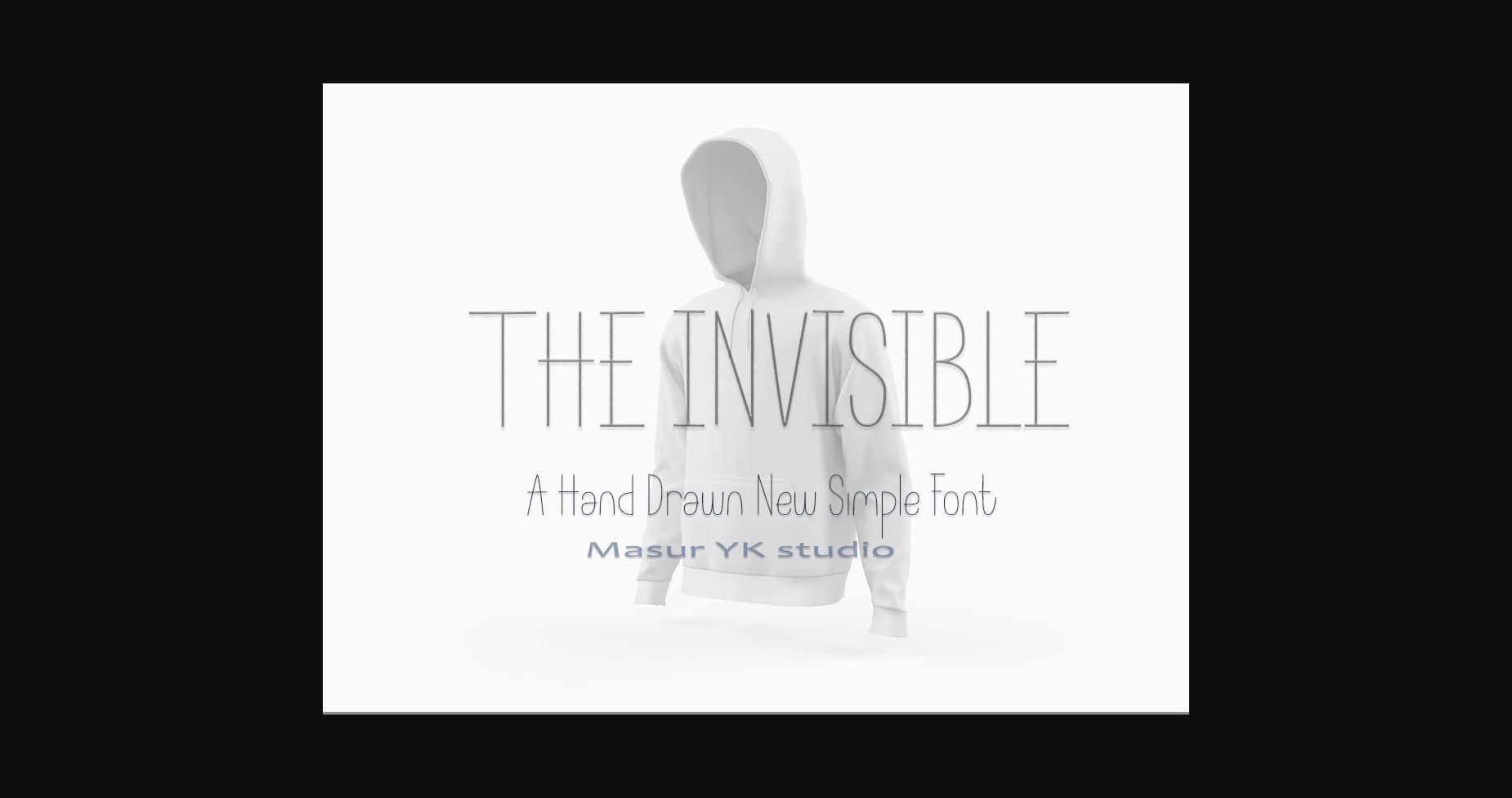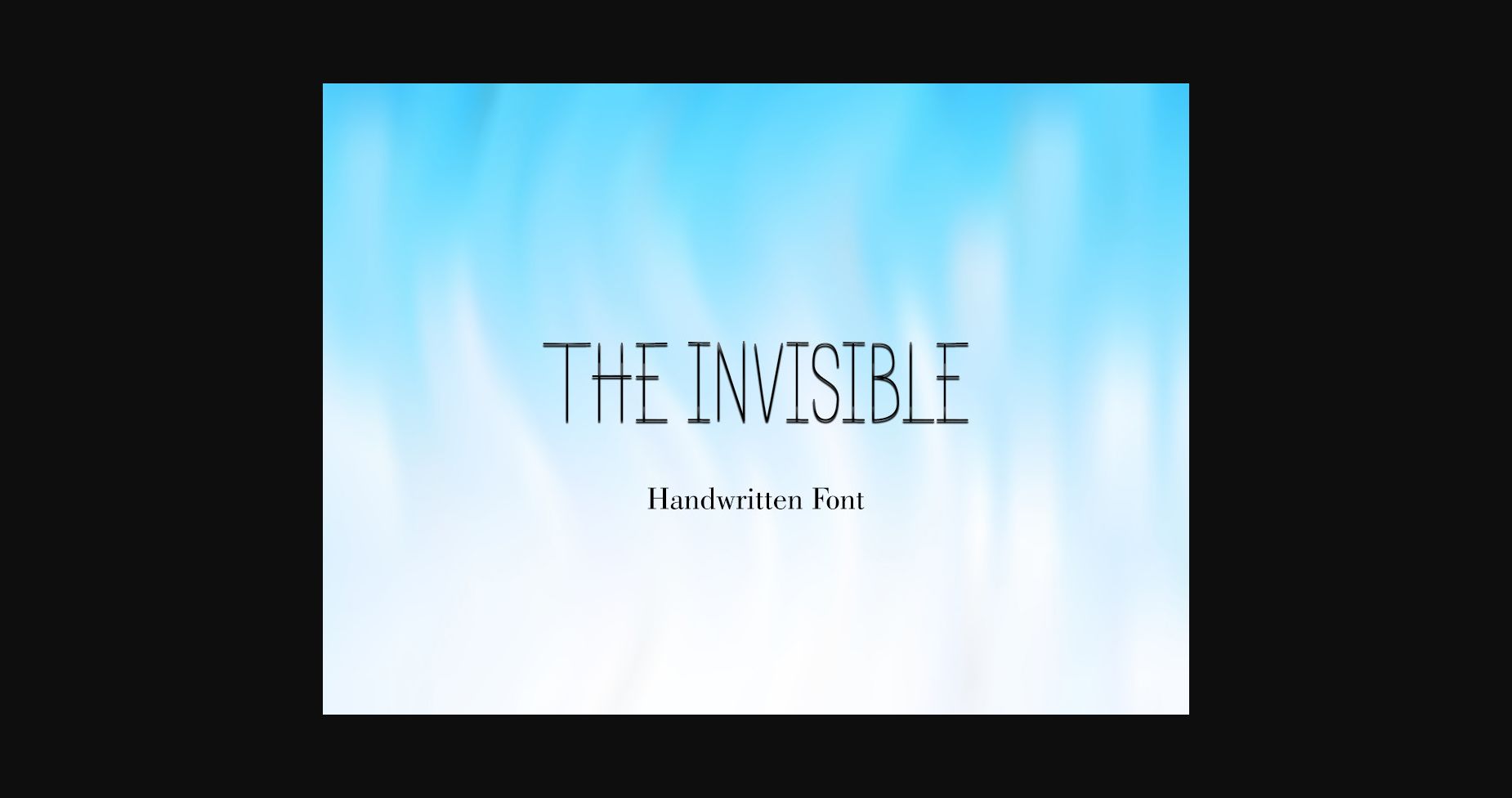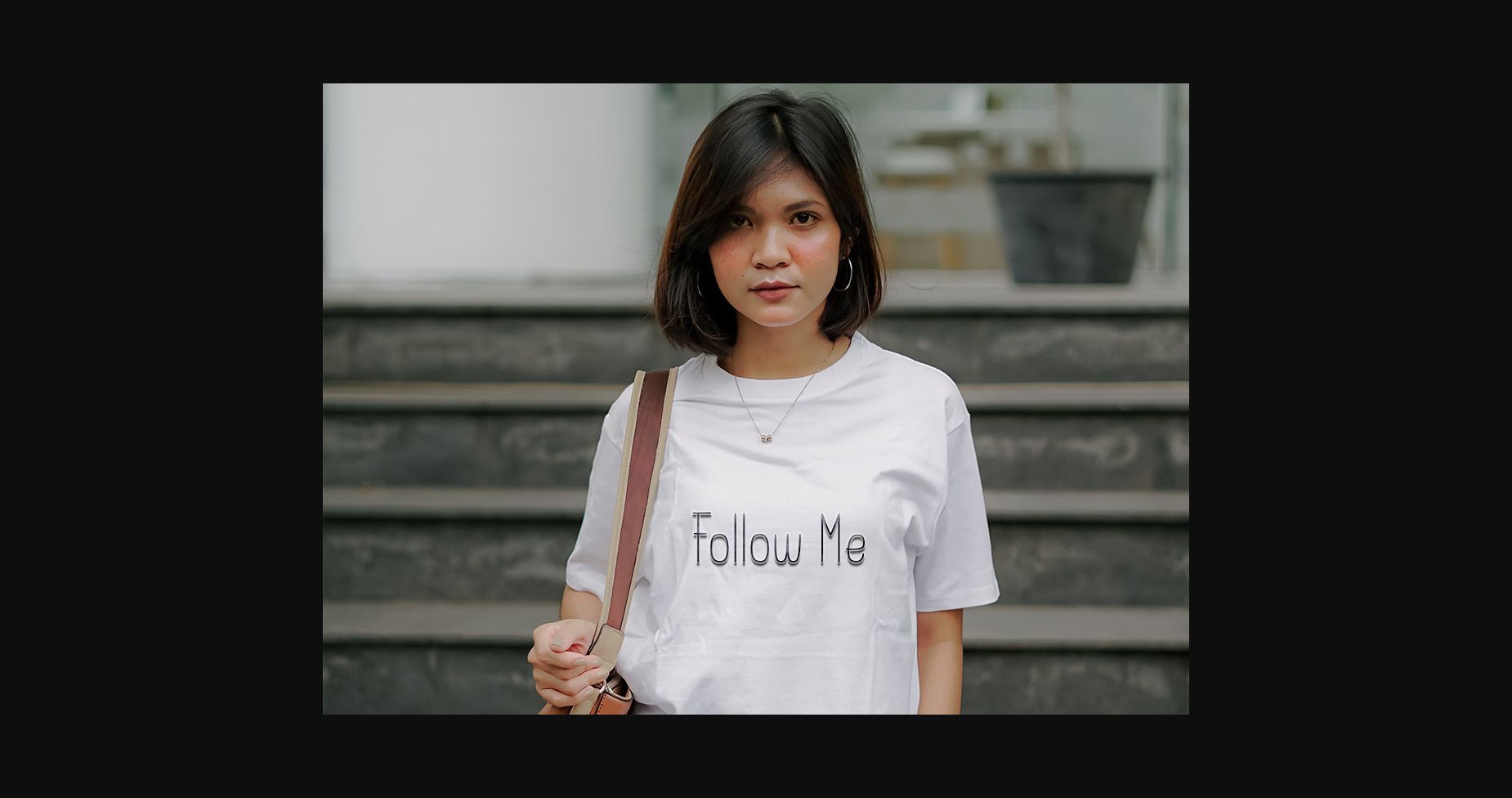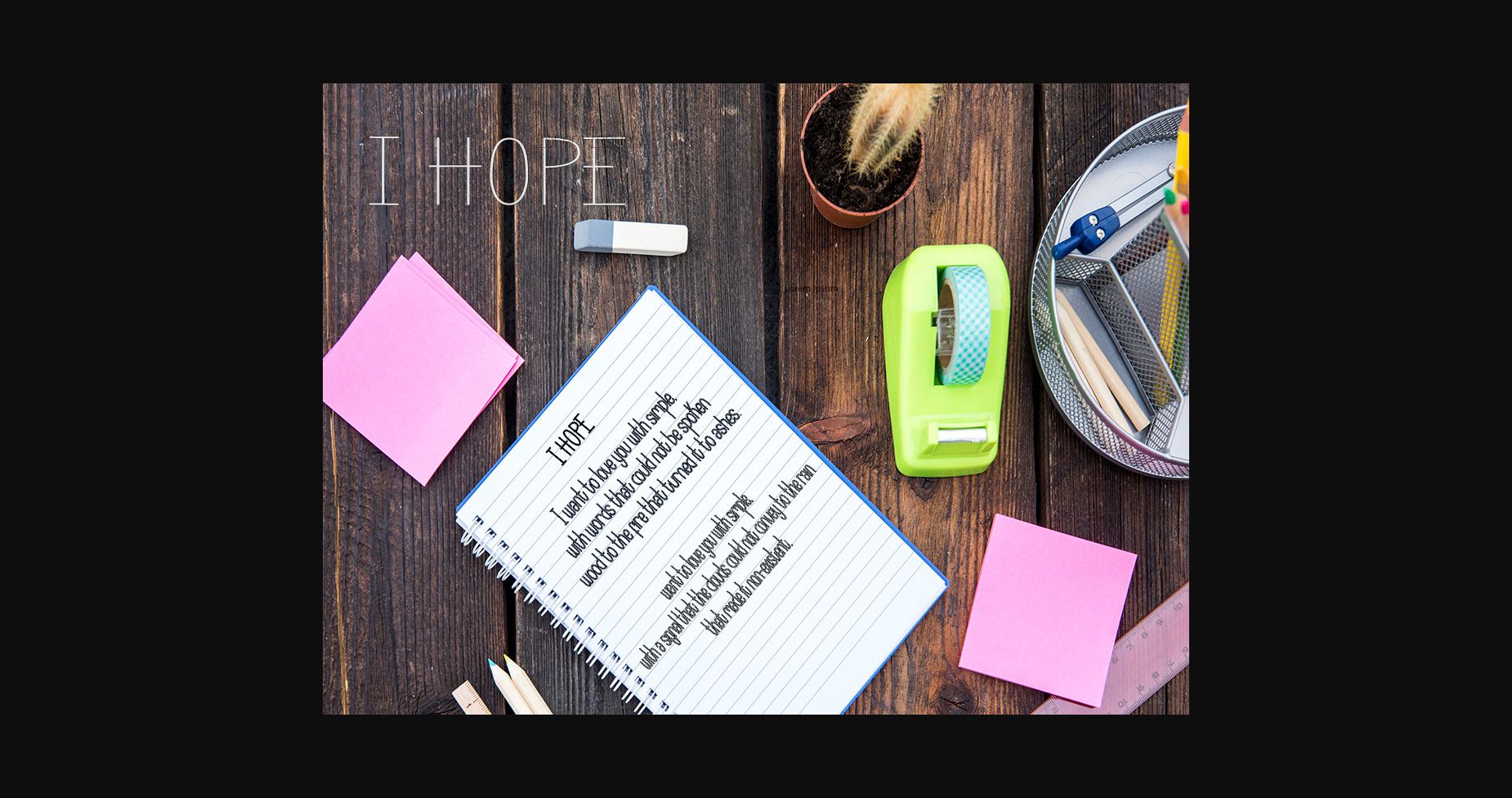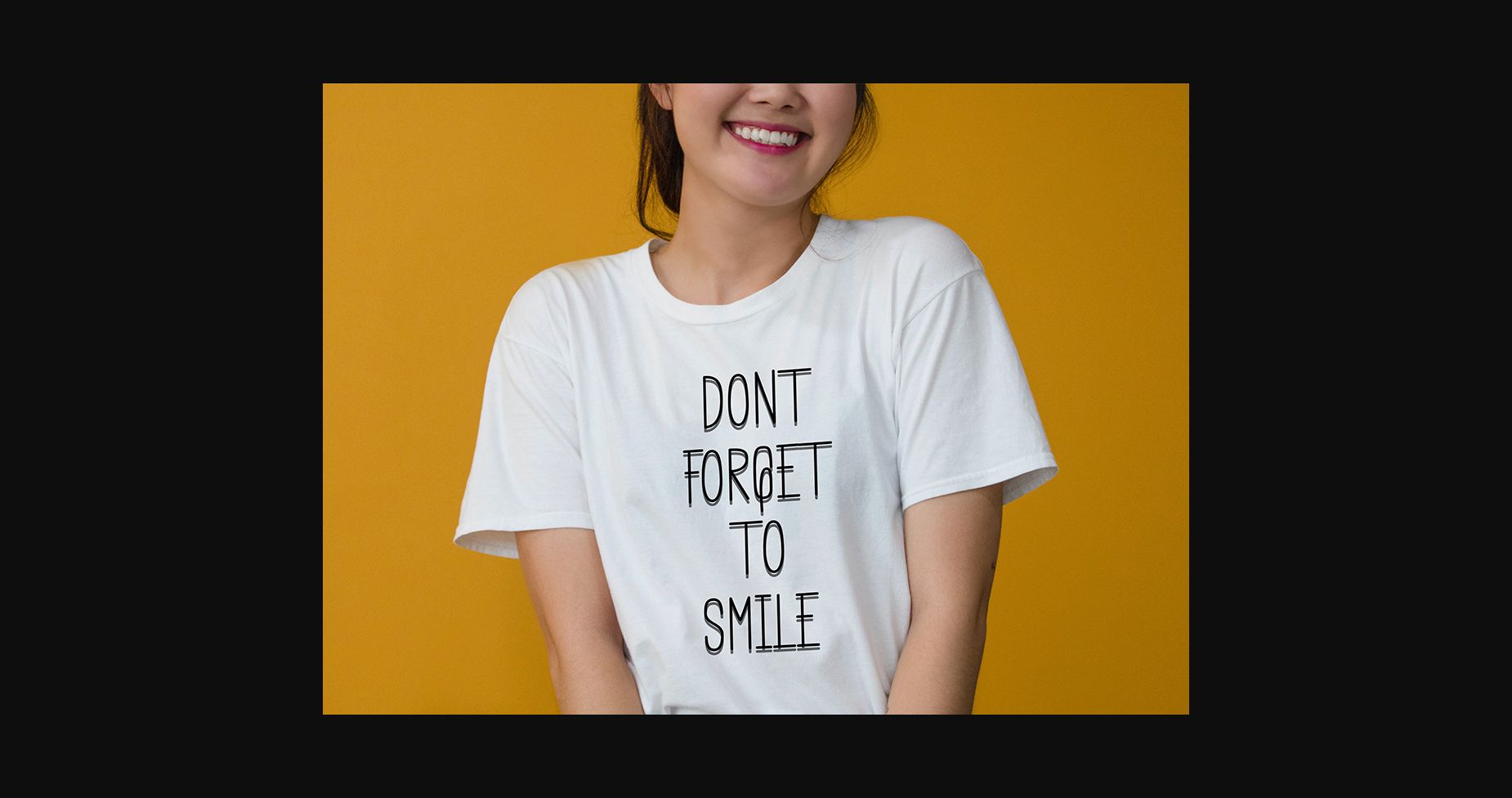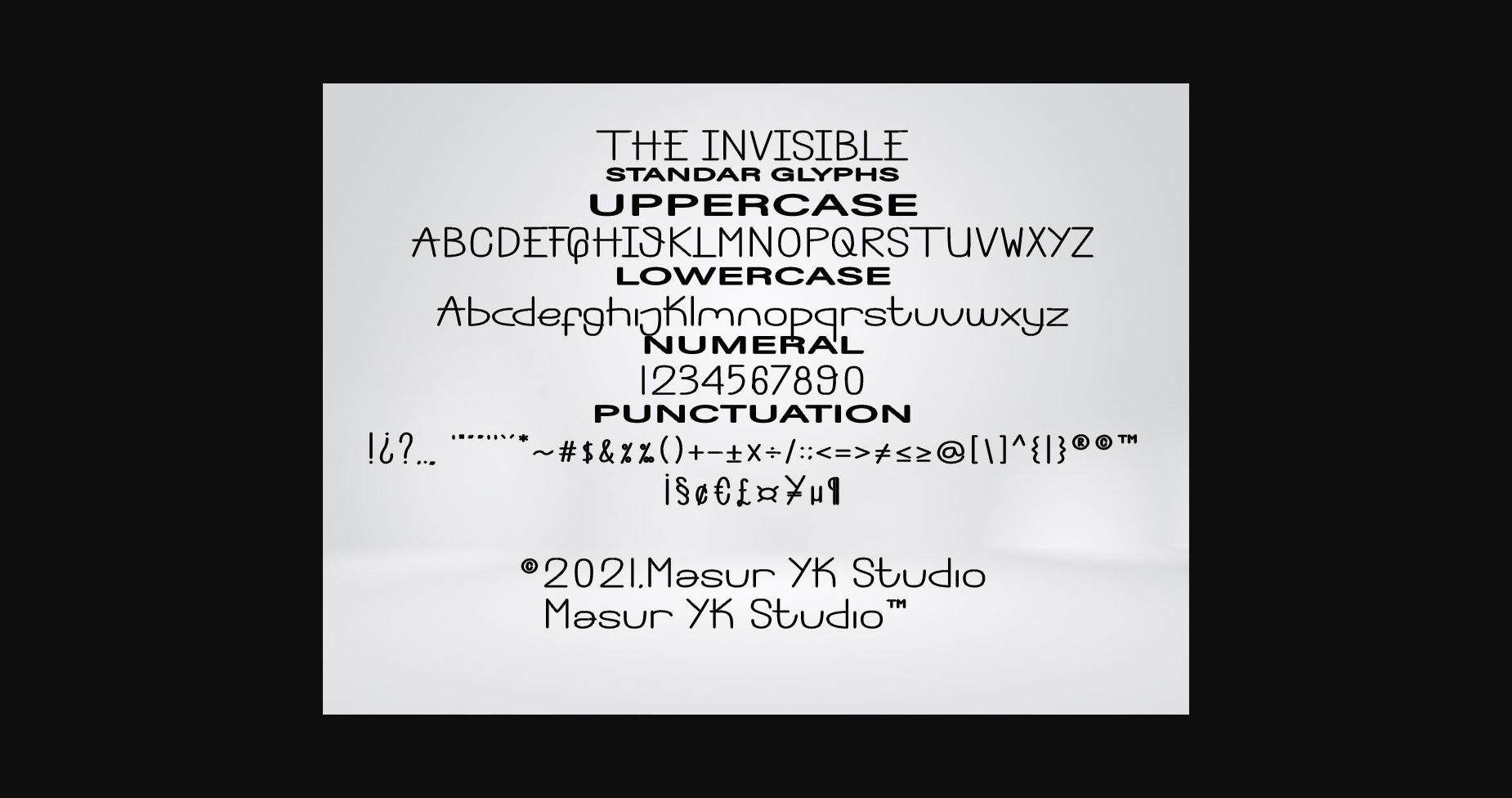
About The Invisible Font
The Invisible is a thin lettered and neat sans serif font. It can easily be matched to an incredibly large set of projects, so add it to your creative ideas and notice how it makes them stand out!